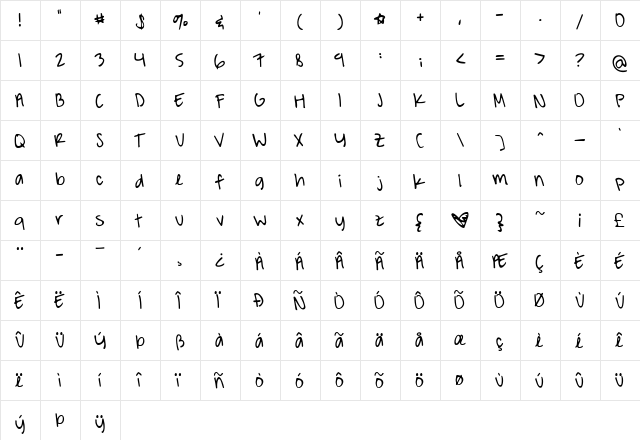
A Hundred Miles Regular
Design Context for A Hundred Miles Typeface
A Hundred Miles is a composed and adaptable typeface that performs quietly and consistently across a wide range of design contexts.